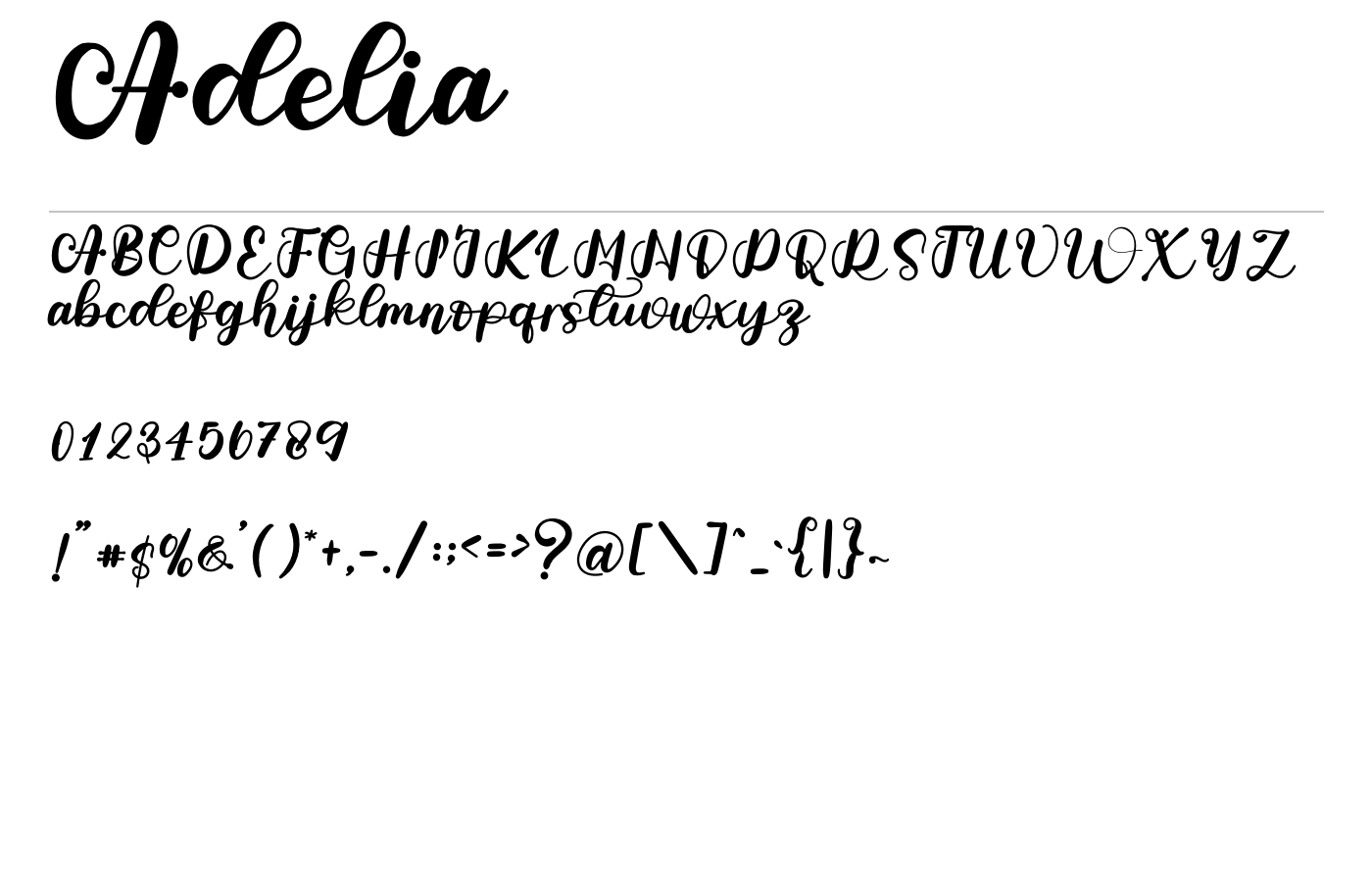
Adelia is a bold, script-style font with a playful and elegant flair, featuring smooth, flowing strokes and distinct rounded terminals. Its lively character makes it ideal for creative branding, invitations, and eye-catching headlines where a personal, hand-lettered touch is desired. This font’s charming personality brings warmth and style to fashion, beauty, and lifestyle projects.
Adelia Font
About Adelia Font